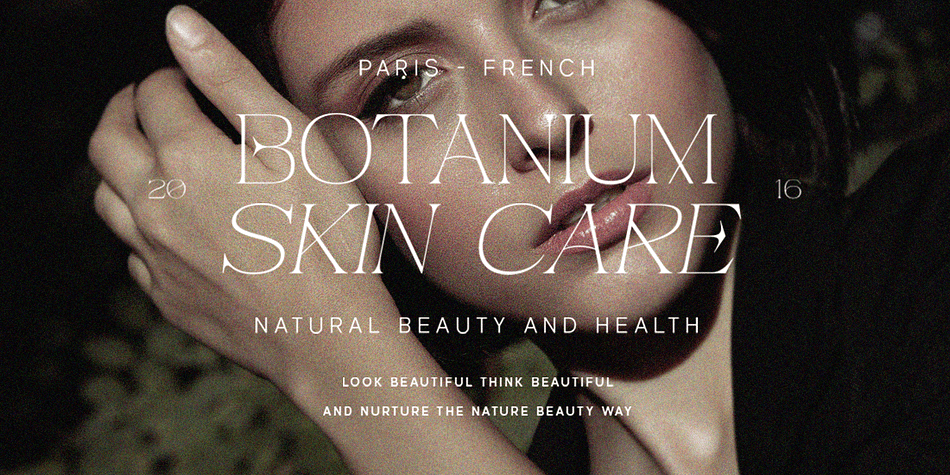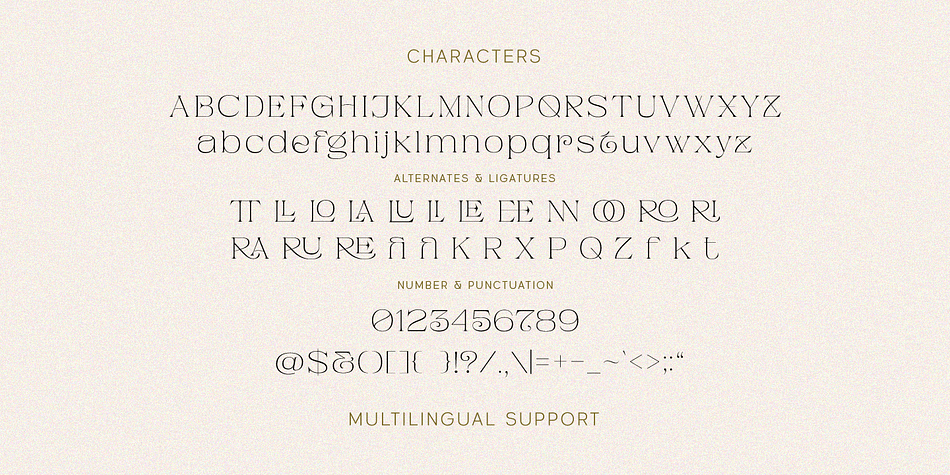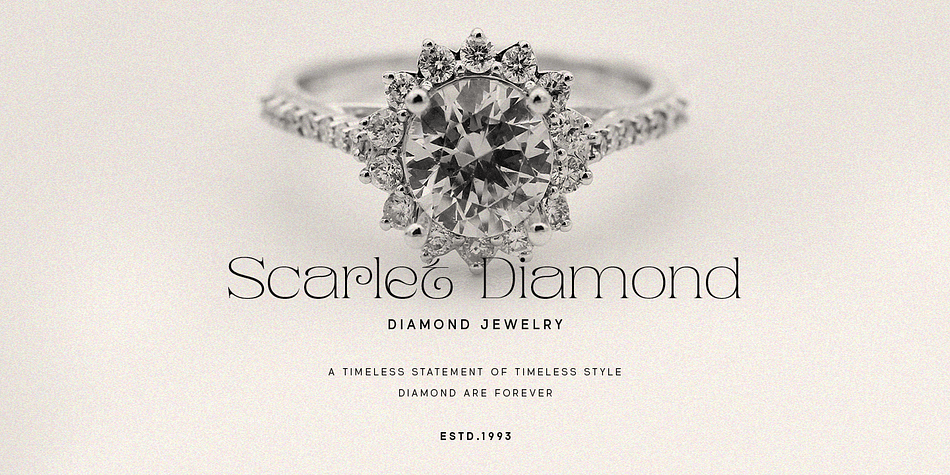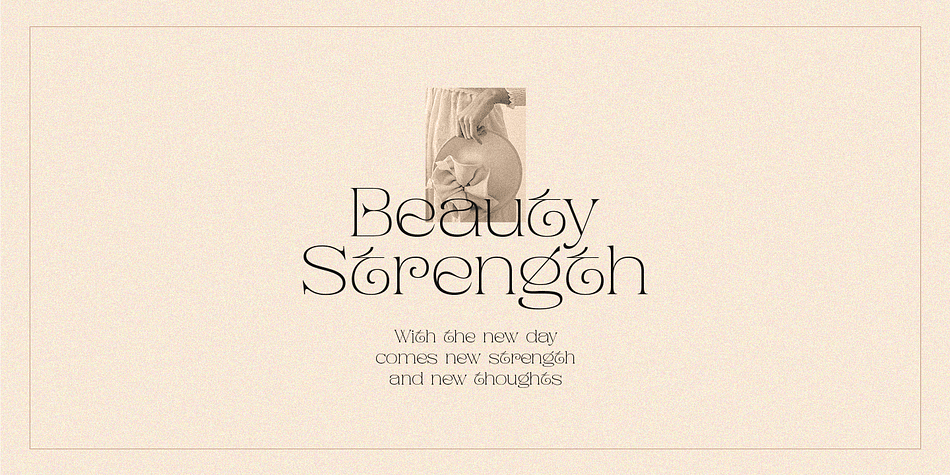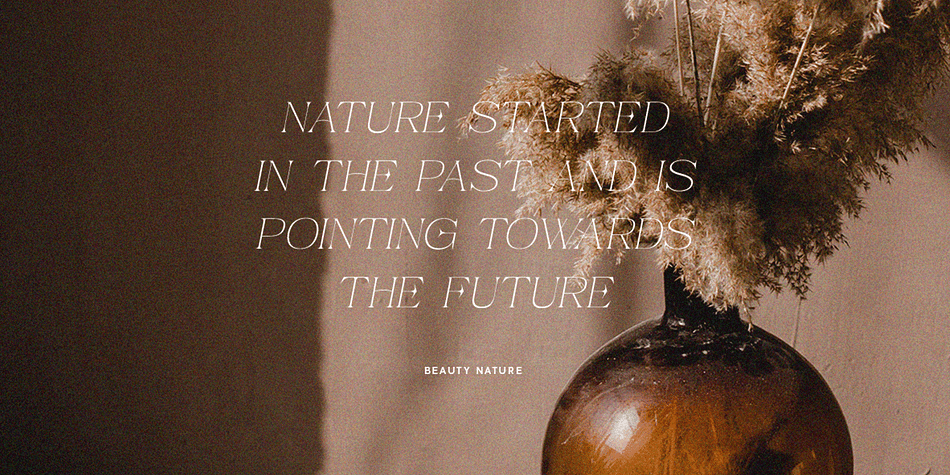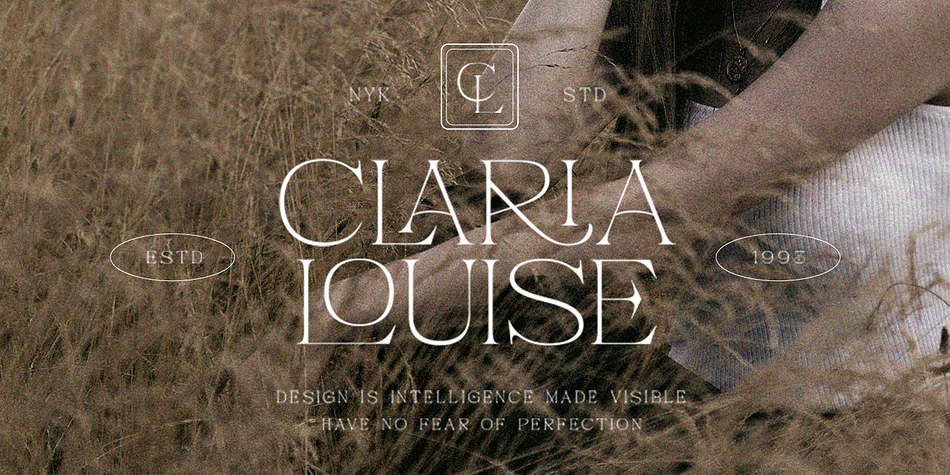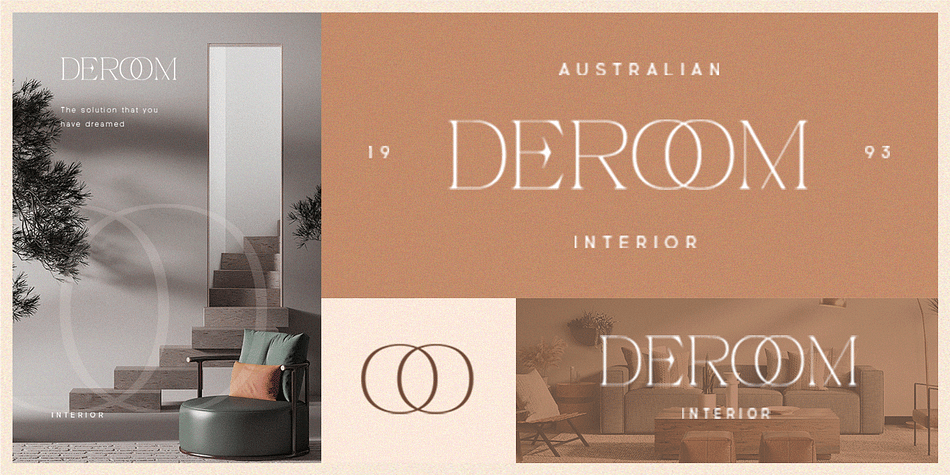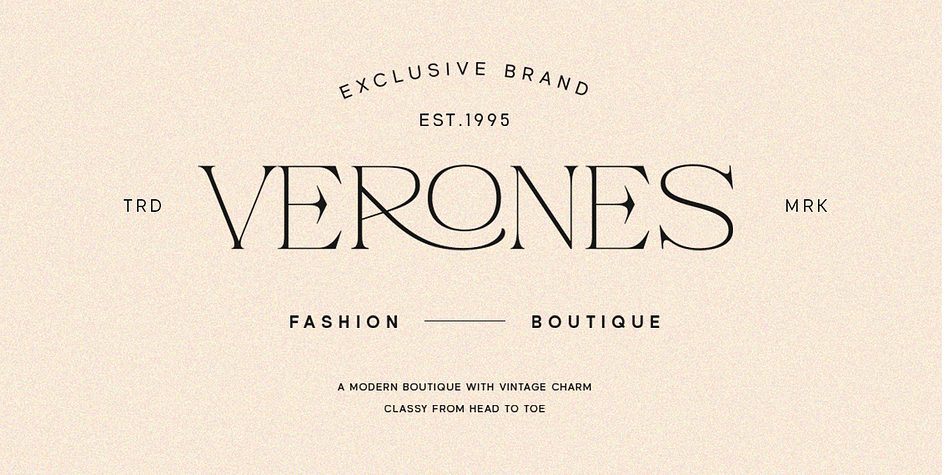
Pandora Emotion
Designed by Hendry Juanda, Pandora Emotion is a display serif font family. This typeface has two styles and was published by Letterhend Studio.
Introducing, Pandora Emotion, A stylish serif with classy looks. This typeface has been made carefully to make sure its premium quality and luxury feel. The ligatures makes this typeface unique and stands out rather than the regular serif font, very suitable for logo, headline, tittle, and the other various formal forms such as invitations, labels, logos, magazines, books, greeting / wedding cards, packaging, fashion, make up, stationery, novels, labels or any type of advertising purpose.
- Alternates & Ligatures